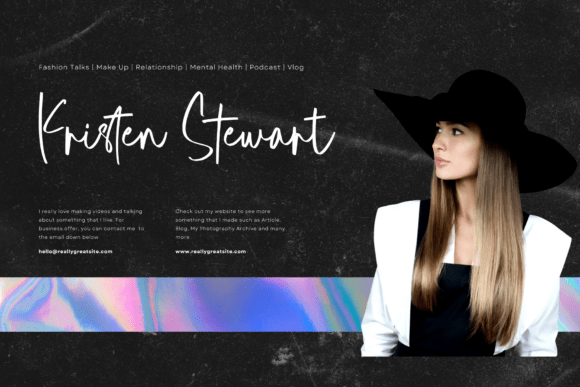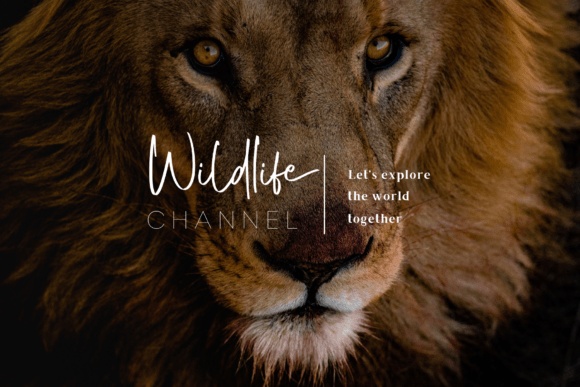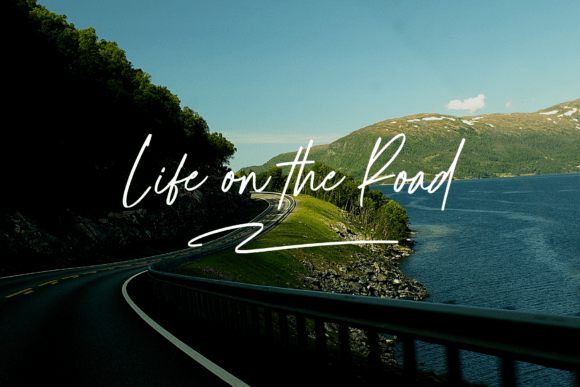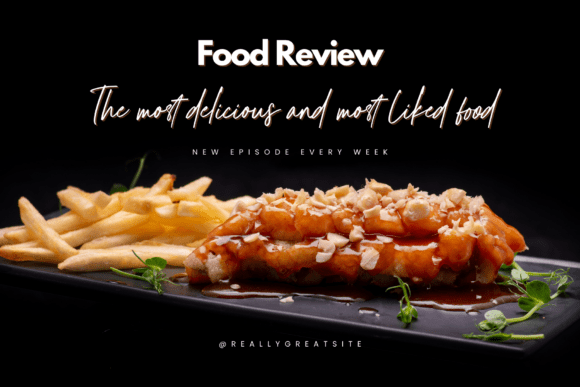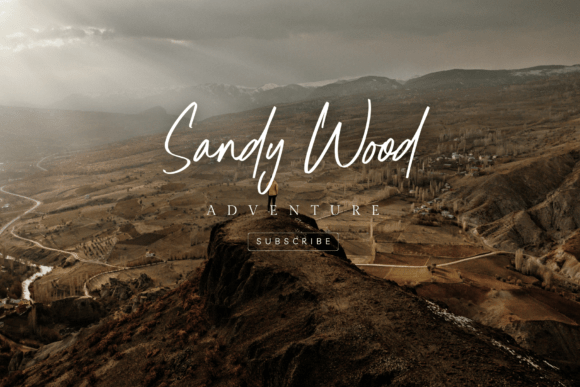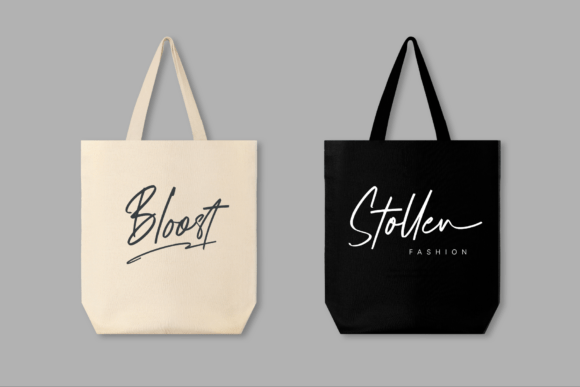
Introduction to Rotterline Font
Have you ever been in a creative flow, and suddenly a brilliant idea strikes you, but you can’t quite put it into words? For designers, this moment is a blessing and a curse – a spark of inspiration that can either lead to a masterpiece or a messy experiment. For those who’ve experienced it, you know how crucial the right design resources can be in bringing your vision to life. That’s where the Rotterline Font comes in – a modern signature font that adds a touch of elegance and sophistication to any project.
With its smooth, handwritten style and natural strokes, the Rotterline Font is perfect for logos, branding projects, and creative endeavors where a personal touch is essential. Whether you’re working on a high-quality design for a client or a personal project, this font is sure to make your work stand out effortlessly. And the best part? It’s available for free download, making it an excellent addition to your design resource library.
Key Features of Rotterline Font
- Unique, modern design perfect for creative projects
- High-quality font with a transparent background, ideal for graphic design and digital art
- Perfect for designers looking for a unique and creative font for their next project
Honest Review: Rotterline Font
I recently stumbled upon the Rotterline Font and was excited to try it out for my latest creative project. As a designer, I’m always on the lookout for high-quality design resources, and I was pleased to find that this font delivers.
What works well: ✨ The Rotterline Font is incredibly versatile and can be used for a wide range of creative projects, from logos to posters. I also appreciate the transparent background, which makes it easy to layer with other design elements. The font is also available for free download, which is a major plus in my book.
However, there are a few limitations to keep in mind: ⚠️ The font only comes in a limited number of weights, which can make it less versatile for certain projects. Additionally, the font may not be suitable for all types of text, as it has a more playful and cursive feel.
Overall, I’m really impressed with the Rotterline Font and would definitely recommend it to fellow designers. While it may not be perfect, it’s a great addition to any design resource collection.
- Limited number of weights
- May not be suitable for all types of text
Tips for Getting the Most Out of Rotterline Font
To get the most out of Rotterline Font, use it with a transparent background to create a clean and modern design. Experiment with different font sizes, colors, and combinations to add visual interest to your project.
Rotterline Font is perfect for:
- Creating social media graphics and advertisements
- Designing presentations and reports
- Developing branding and marketing materials
Alternatives to Rotterline Font
Great Vibes is a high-quality, script font that can be used for various creative projects such as wedding invitations, logos, and other design elements. It has a beautiful, elegant feel to it and is perfect for adding a touch of sophistication to your design. When to use: For projects that require a stylish, handwritten feel. How it compares to Rotterline Font: Great Vibes has a more elegant and refined look compared to Rotterline Font, making it ideal for high-end designs.
Alex Brush is a beautiful, handwritten font that is perfect for designers looking for a high-quality, creative resource. It features a transparent background and is available for free download. When to use: For projects that require a touch of elegance and sophistication. How it compares to Rotterline Font: Alex Brush has a more subtle and refined look compared to Rotterline Font, making it ideal for designs where a more understated feel is required.
Dancing Script is a fun, playful font that is perfect for designers looking for a creative resource for their projects. It features a beautiful, handwritten feel and is available for free download. When to use: For projects that require a fun, energetic feel. How it compares to Rotterline Font: Dancing Script has a more playful and energetic look compared to Rotterline Font, making it ideal for designs where a more lively feel is required.